Using a couple fonts together in a layout seems easy enough, right? But it can take some thinking (and searching!) to come up with 2 fonts that really work well together. Do they look good together? Do they compete with each on the page? Do the styles of the font complement the general style of your page? Below, read 4 tips for pairing fonts in your layouts.
First, use two different font weights. This example uses the fun, fat CHICKEN pie font with the stylized, thin cafe & brewery font on top.
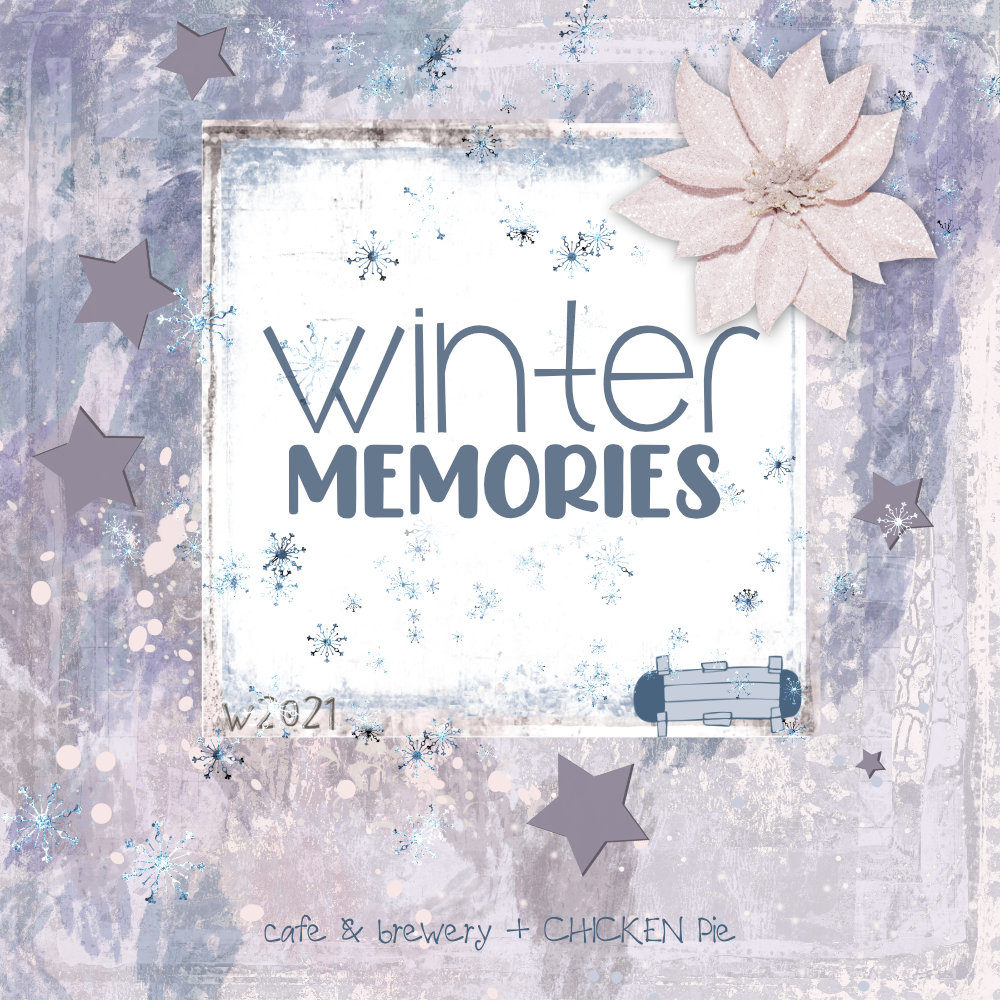
Next, mix up Serif and Sans Serif. This example uses the Serif font Always Here (winter) along with the cute Sans Serif Moon Flower font (memories).
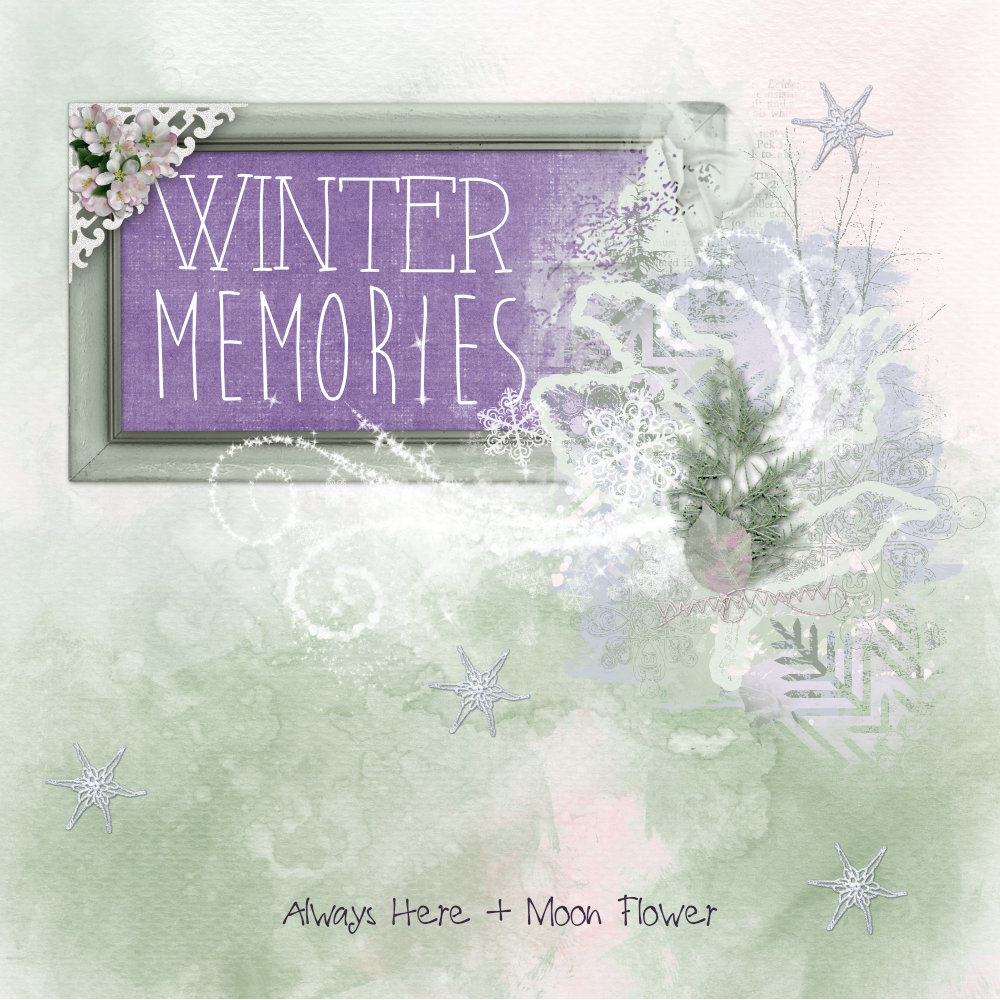
Third, use complementary fonts. This is an example of pairing similarly-weighted fonts. Both are heavy and dark. Their forms contrast, but not too much. Also, it’s a little bit more subtle way of using a Serif and San Serif together, like above. I used Snowkybrush (perfect for Layout-a-Day, right?) and The Artisan Marker.
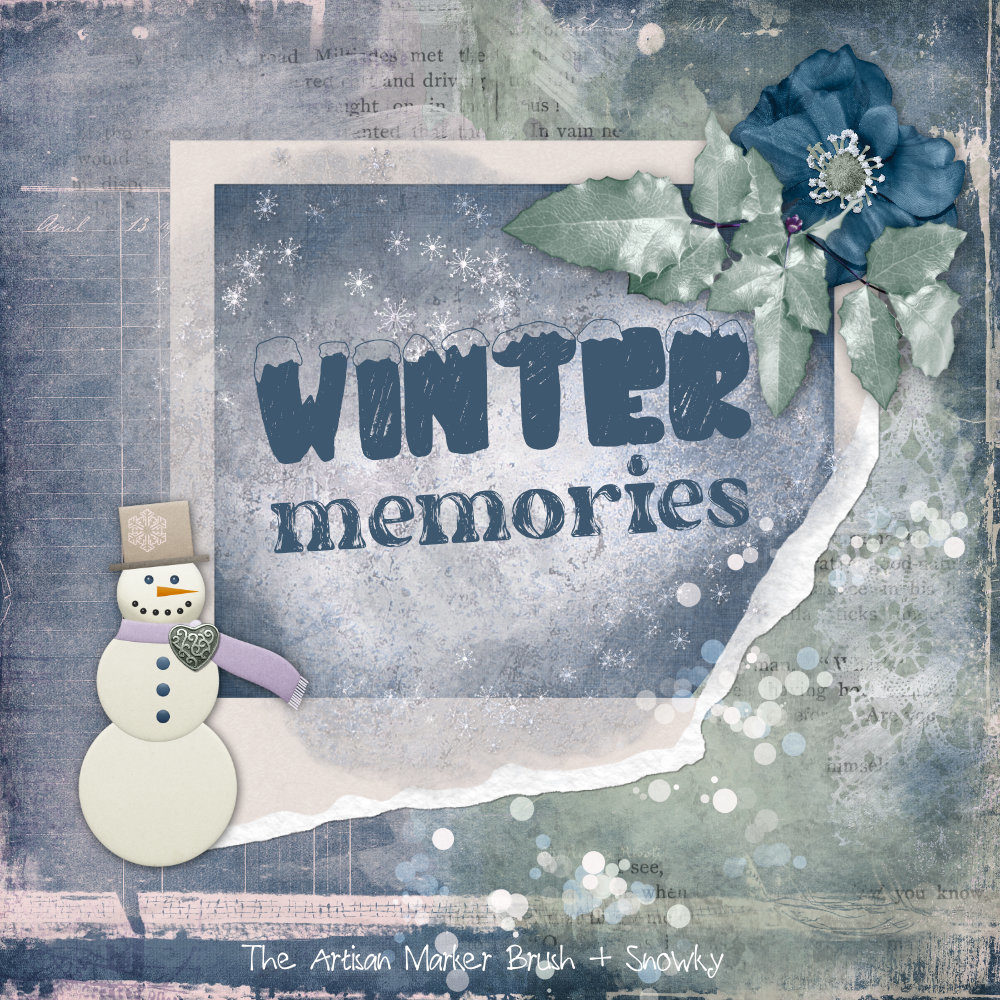
Finally, try using variants within the same font family. This one uses two different styles in Hallo White. I love the subtle, sparkly Display font here along with the simpler second style. Maybe another good Layout-a-Day font?
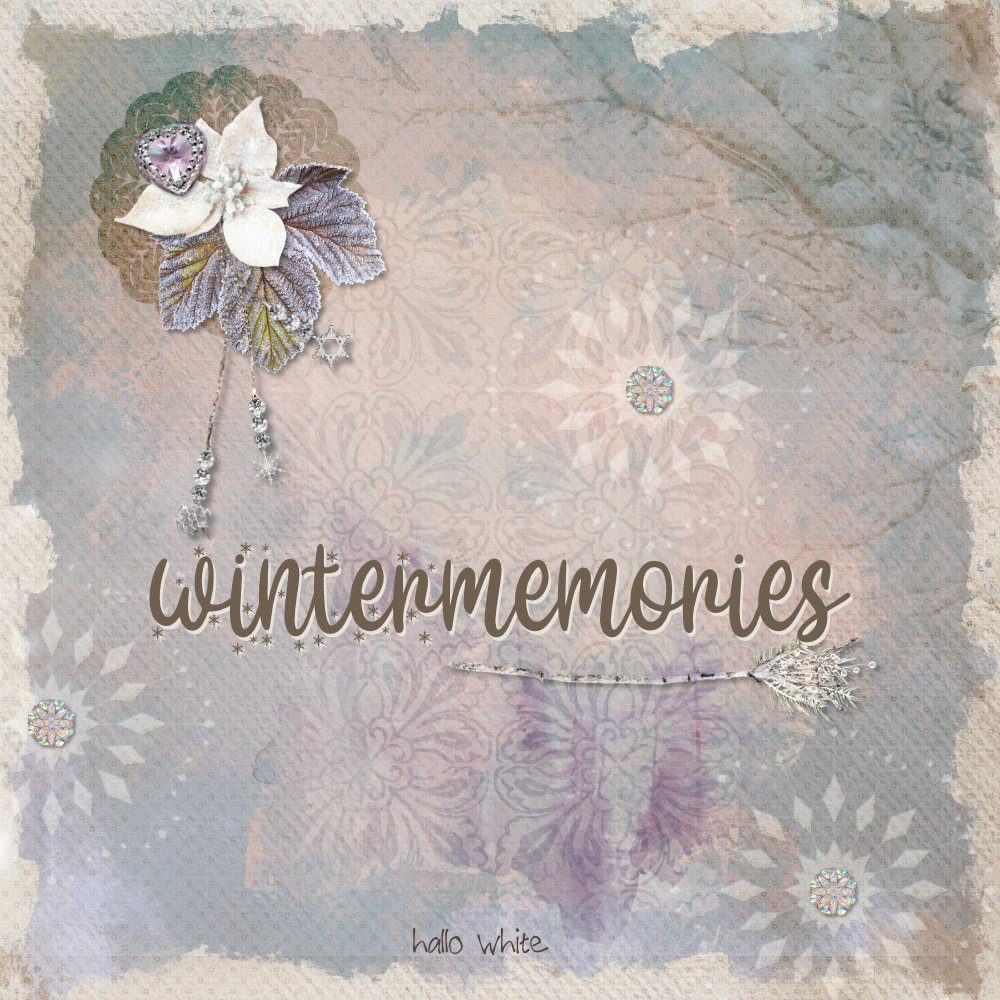
I hope this gives you a few things to think about the next time you’re using two fonts together in your layouts.